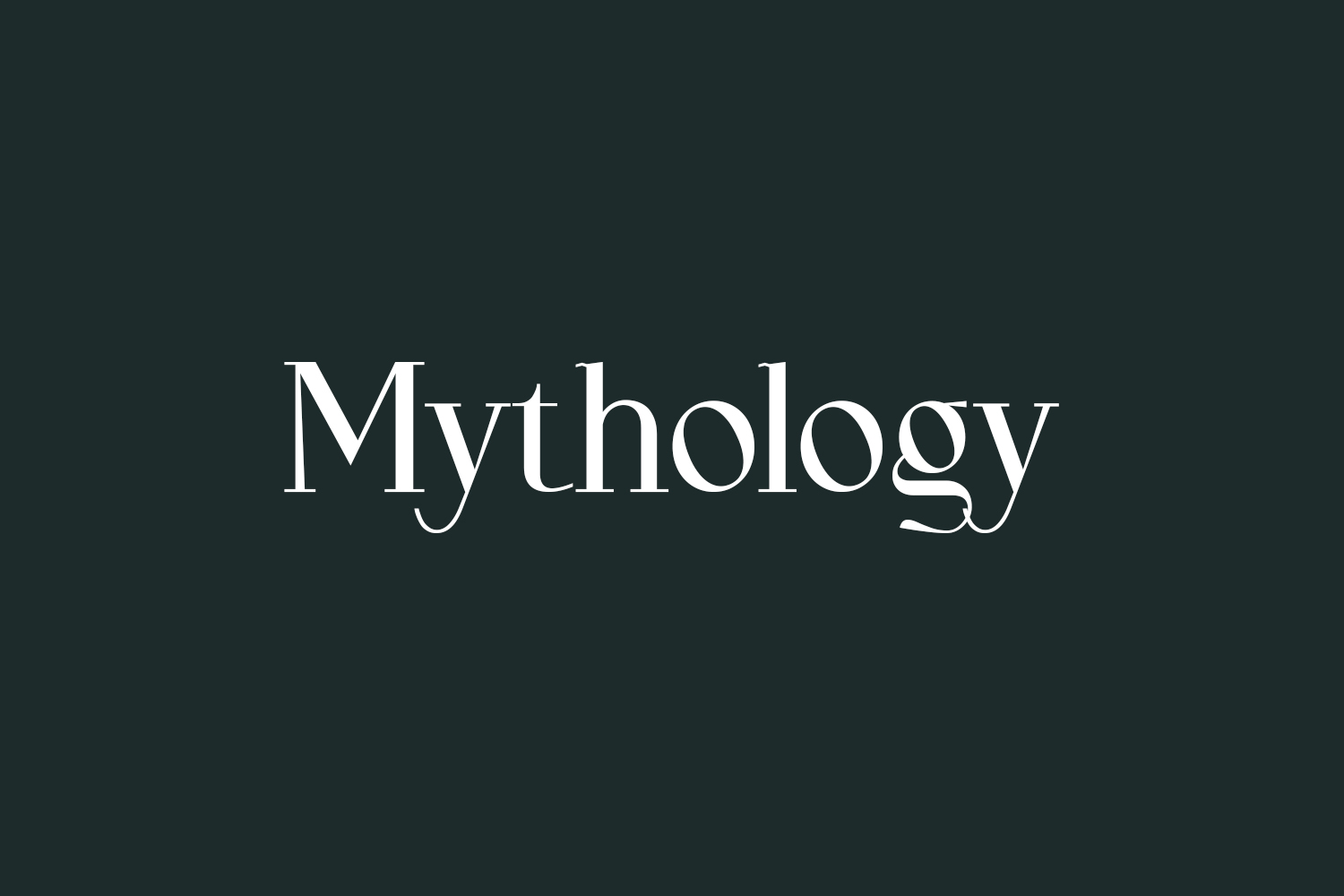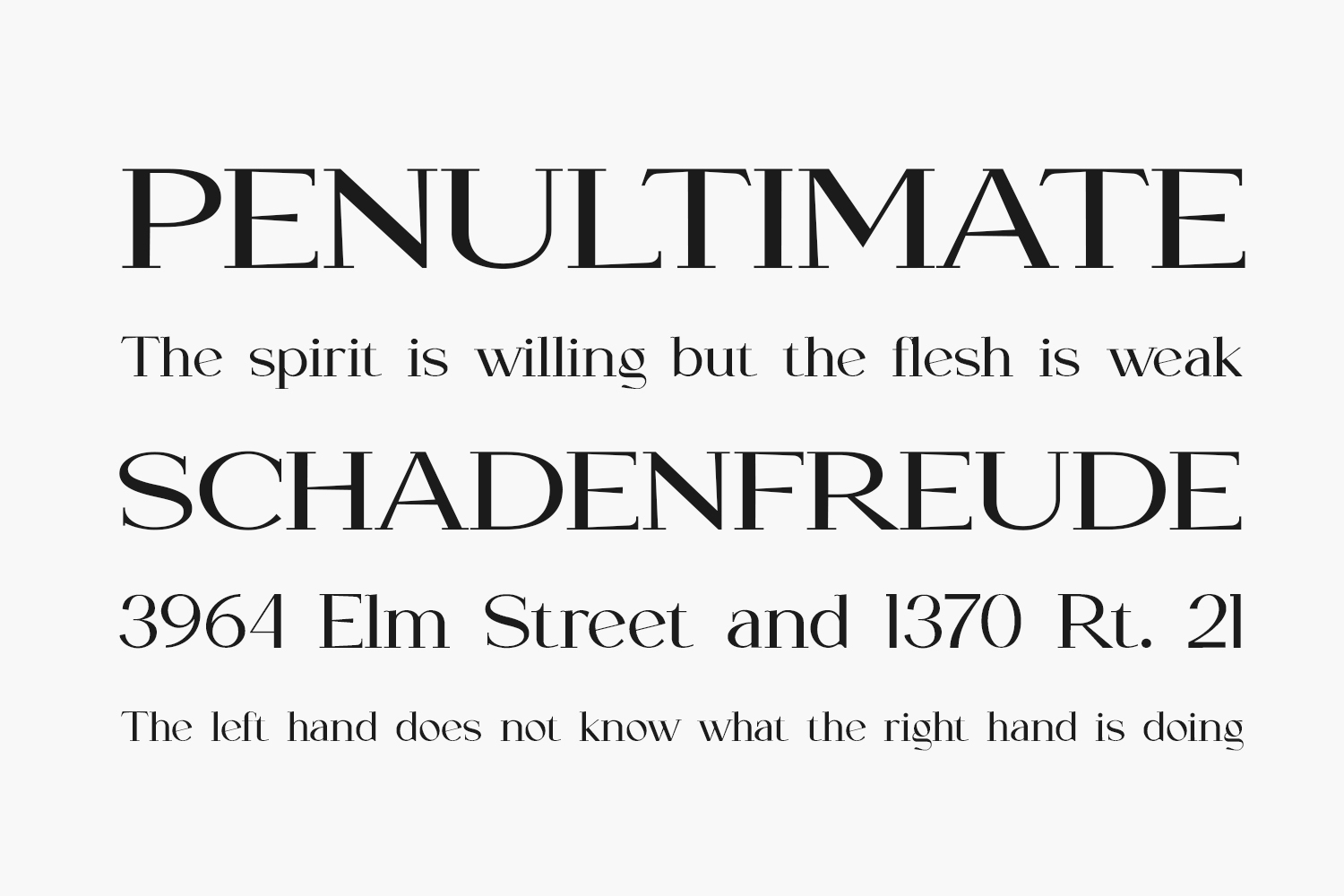
Mythology – Free Retro-Serif Display Font with Stylish 70s Flair
Mythology is a stylish serif display font designed by UI Creative, inspired by the geometric and expressive letterforms of the 1970s. It features high-contrast strokes with thick and thin variations, giving it both boldness and elegance. The demo version available in TTF is free for personal use; commercial licensing is available from UI Creative.
- 70s Retro Elegance: Thick and thin serif contrasts evoke vintage editorial styles.
- Display-Ready: Ideal for headlines, magazine covers, branding, wedding invites, and book titles.
- Balanced Yet Distinctive: Harmonious letterforms with unique personality.
- Editorial Covers & Magazine Headers: Standout headlines with retro charm.
- Logos & Branding: Adds elegance to boutique, fashion, or beauty identities.
- Wedding Invitations & Stationery: Timeless serif adds sophistication.
- Web & Social Media Graphics: Perfect for hero banners and quote overlays.
- Posters & Print Design: High-contrast strokes pop in large-scale formats.
Use large display sizes (30pt+) to highlight its high-contrast serifs. Pair with a clean sans-serif like Montserrat for modern balance. Try muted retro palettes—cream, rust, olive—for vintage appeal. Consider combining regular and italic weights for variation (full family versions available).